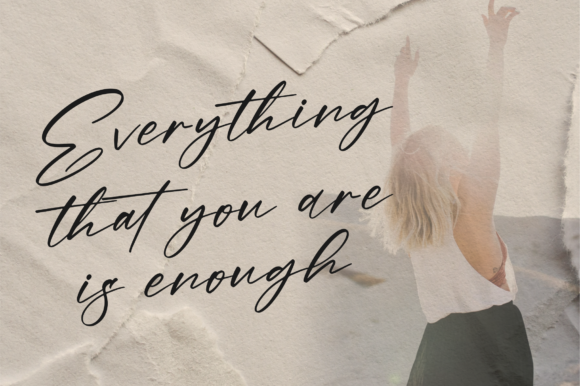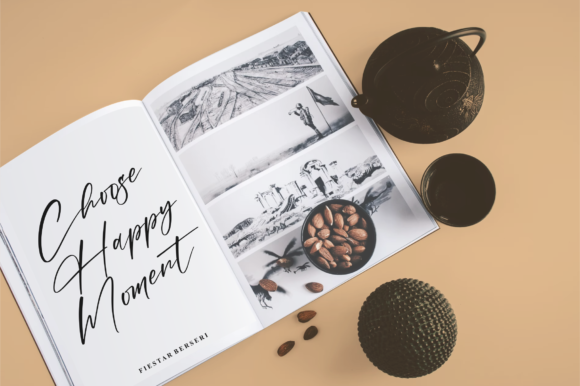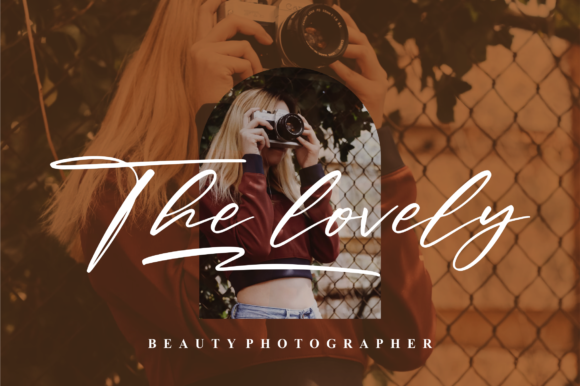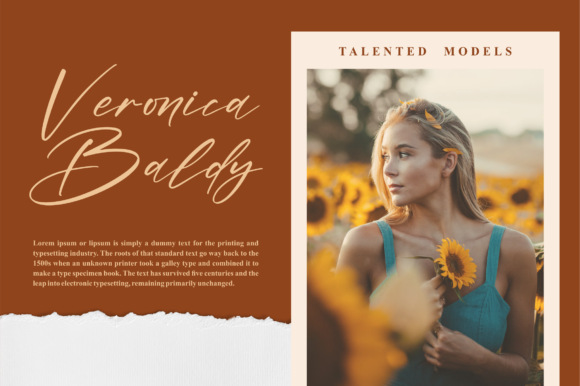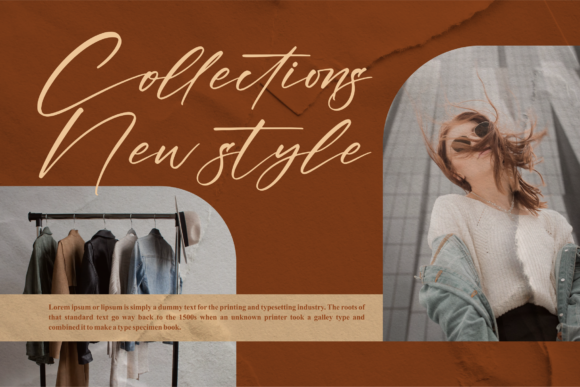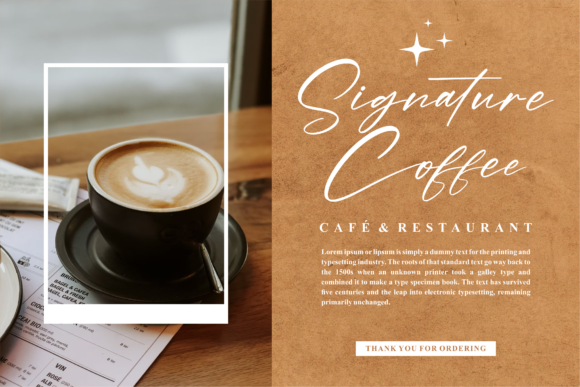
Introducing Balmyne Hetegra Font: Elevate Your Designs with Luxury and Elegance
In the world of typography, fonts play a crucial role in making or breaking a design. A beautiful font can instantly elevate a project, adding a touch of sophistication and elegance. If you’re a designer or crafter looking for a font that can add a luxury spark to your creations, look no further than Balmyne Hetegra Font. In this article, we’ll dive into the features and benefits of this stunning handwritten font, and explore how it can take your designs to the next level.
What is Balmyne Hetegra Font?
Balmyne Hetegra Font is a beautiful and light handwritten font that boasts a unique feel and a stunning impact. With its elegant and refined strokes, this font is perfect for designers and crafters who want to add a touch of luxury to their projects. Whether you’re working on a branding project, a wedding invitation, or a packaging design, Balmyne Hetegra Font is sure to impress.
Key Features of Balmyne Hetegra Font
So, what makes Balmyne Hetegra Font so special? Here are some of its key features:
- PUA Encoded: Balmyne Hetegra Font is PUA (Private Use Area) encoded, which means you can access all of the amazing glyphs and ligatures with ease. This makes it easy to use and incorporate into your designs.
- Unique Feel: This font has a unique feel that sets it apart from other handwritten fonts. Its elegant strokes and refined lines make it perfect for designs that require a touch of sophistication.
- Luxury Spark: Balmyne Hetegra Font is designed to add a luxury spark to any design project. Whether you’re working on a high-end branding project or a special event invitation, this font is sure to impress.
- Handwritten: This font is a beautiful example of handwritten typography. Its natural and fluid strokes make it perfect for designs that require a personal touch.
Benefits of Using Balmyne Hetegra Font
So, why should you choose Balmyne Hetegra Font for your next design project? Here are some of the benefits of using this stunning font:
- Elegance and Sophistication: Balmyne Hetegra Font adds a touch of elegance and sophistication to any design project. Its refined strokes and elegant lines make it perfect for high-end designs.
- Versatility: This font is versatile and can be used for a wide range of design projects, from branding and advertising to packaging and event invitations.
- Easy to Use: Balmyne Hetegra Font is PUA encoded, making it easy to use and incorporate into your designs. You can access all of the amazing glyphs and ligatures with ease.
- Unique: This font has a unique feel that sets it apart from other fonts. Its elegant strokes and refined lines make it perfect for designers who want to create something truly special.
How to Use Balmyne Hetegra Font
Using Balmyne Hetegra Font is easy. Here are some tips to get you started:
- Pair it with Other Fonts: Balmyne Hetegra Font pairs well with other fonts, especially serif fonts. Try pairing it with a bold font for a striking contrast.
- Use it for Headings: This font is perfect for headings and titles. Use it to add a touch of elegance and sophistication to your designs.
- Experiment with Colors: Balmyne Hetegra Font looks great in a variety of colors. Experiment with different colors to find the perfect combination for your design.
In conclusion, Balmyne Hetegra Font is a beautiful and light handwritten font that can add a luxury spark to any design project. Its unique feel, elegant strokes, and refined lines make it perfect for designers and crafters who want to create something truly special. With its PUA encoding, this font is easy to use and incorporate into your designs. Whether you’re working on a branding project, a wedding invitation, or a packaging design, Balmyne Hetegra Font is sure to impress.